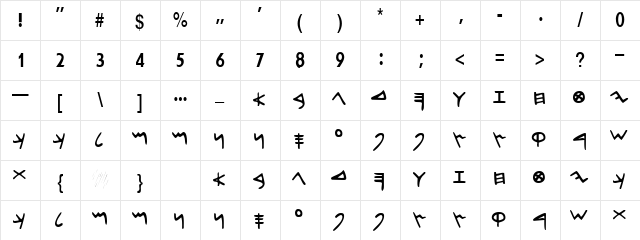
PhoenicianSSK Regular Free Font
PhoenicianSSK Regular
Design Context for PhoenicianSSK
PhoenicianSSK is a composed and adaptable typeface that performs quietly and consistently across a wide range of design contexts.